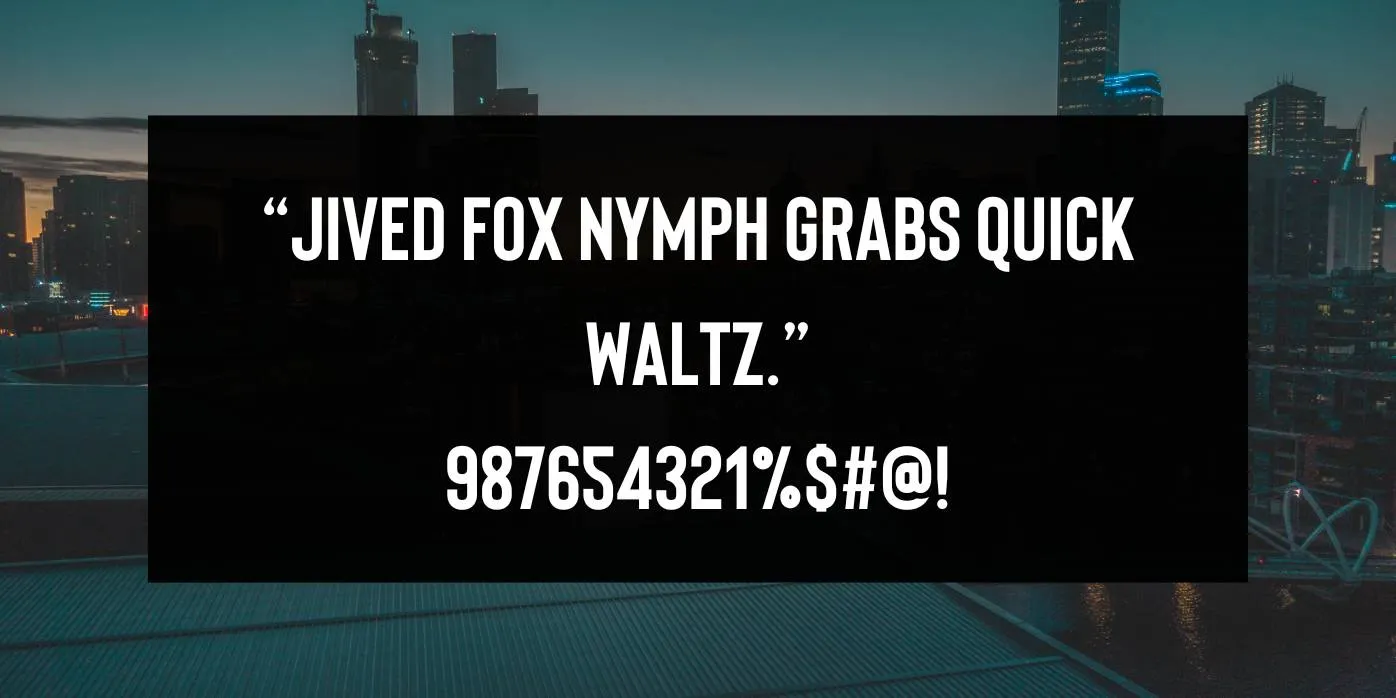
Bison Font is a contemporary Sans-Serif font designed by Canadian designer Ellen Luff, this typeface has even curves, hard lines, and an up-to-date impression which make it perfect for all types of projects.
By using this amazing typeface you can make extraordinary subtitles, captions, passages, headlines, speech marks, banners, autographs, posters, broadsheet or magazine titles, billboards, shop names, documents, assignments, records, reports, and other projects.
This font family can create excellent logos, greeting cards, invites, branding, printing, t-shirts, houseware, product packaging, themes, mug designs, presentations, melodies, blackboards, apps, and many projects where you need a splendid appearance.
What font is Bison Font?
This font is a contemporary Sans-Serif font designed by Canadian designer Ellen Luff, this typeface has even curves, hard lines, and an up-to-date impression which make it perfect for all types of projects.
Is Bison Font good for body text?
This typeface has hard and sharp features as well as amazing letterforms and even curves which provide a stunning touch to any type of design and make it more attractive so it would be a good option for body text and make it legible and clear.